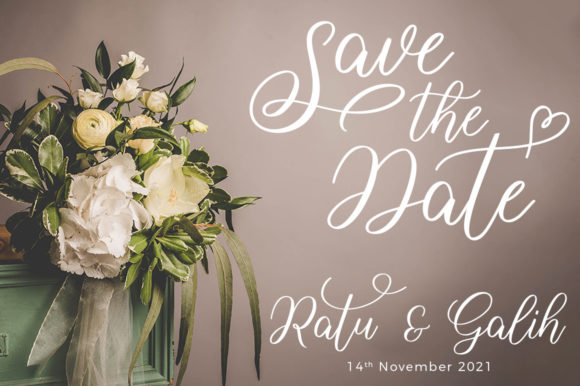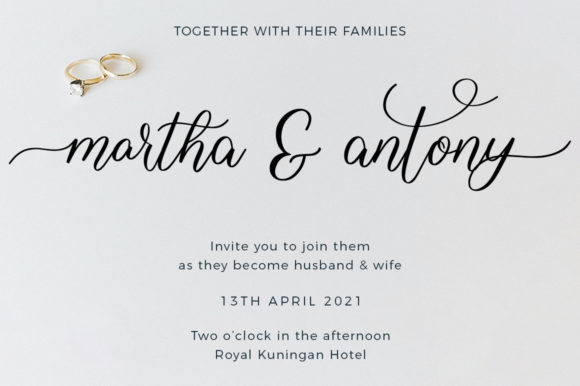
Angelina Font
db-ku.com - Script & Handwritten -- Angelina is an enchanting handwritten font. This versatile script font has a wide spectrum of applications ranging from greeting cards to headlines and is guaranteed to add a romantic feel to your next project.